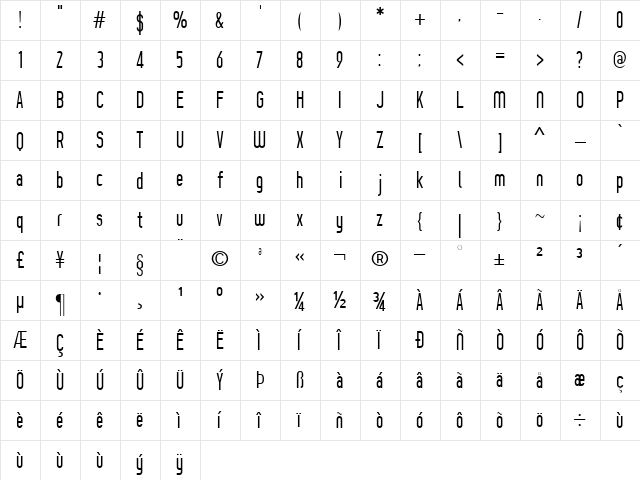
Prozak Light
| Foundry | studio Kmzero |
| Designer | Francesco Canovaro |
Design Context for Prozak Typeface
Prozak takes a measured approach to typography — its balanced proportions and neutral character make it a reliable workhorse for both digital and print work. Its slender proportions lend an understated elegance to any composition.